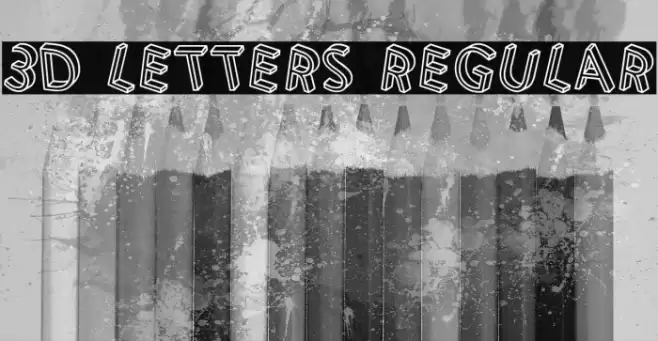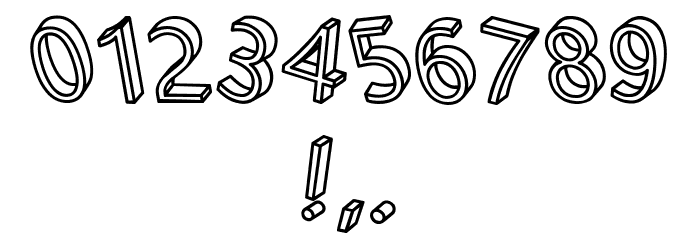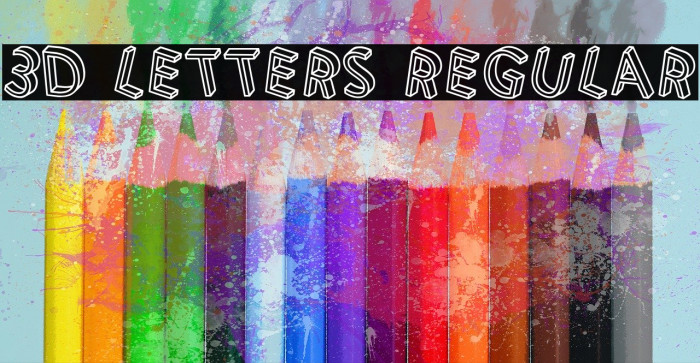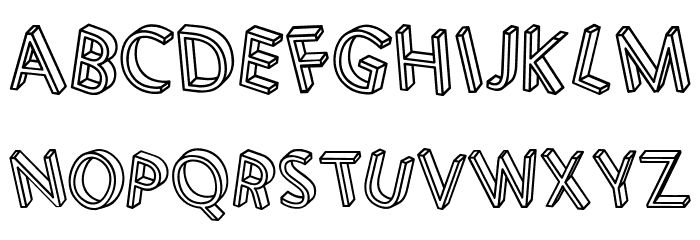
3D Letters Regular Font
3D Letters Regular Description
This font features a bold, three-dimensional design that gives each character a striking and dynamic appearance. The letters and numbers are crafted with a shadow effect, creating a sense of depth and movement. The style is playful and eye-catching, making it ideal for projects that require a strong visual impact. The characters are uniformly spaced, ensuring readability while maintaining their unique 3D effect. This font is perfect for creative and modern designs, where a touch of fun and boldness is desired.
A bold, 3D font with a playful and dynamic style from Uncategorized fonts.
- Proposed Projects: Ideal for posters, headlines, logos, and any design needing a bold, eye-catching element.